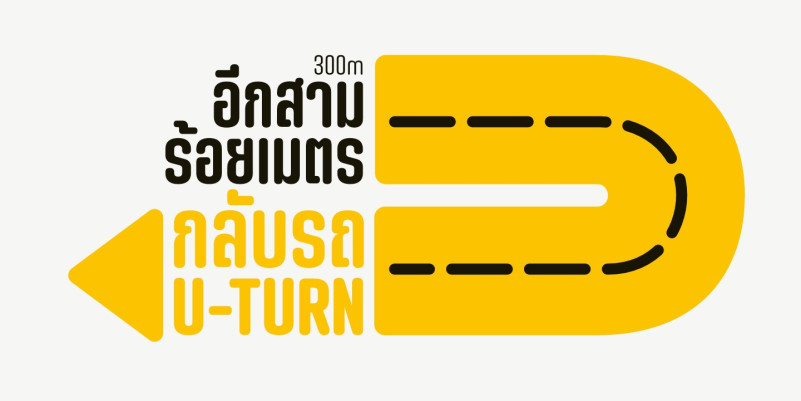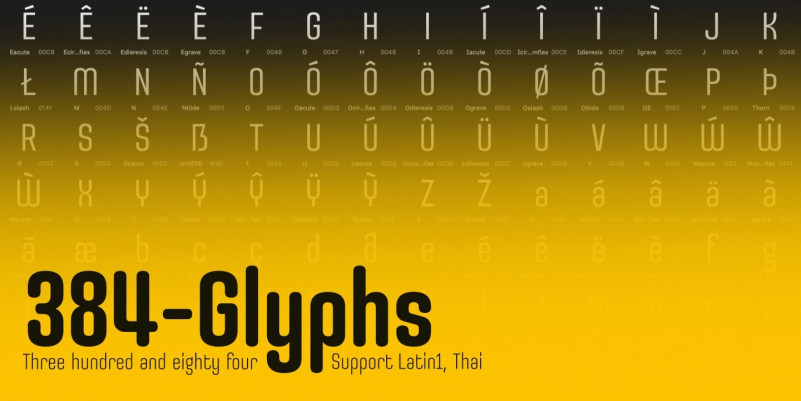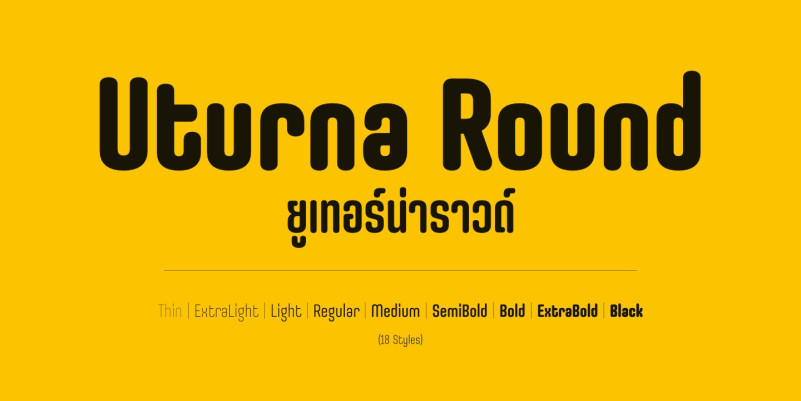
Uturna Round Font
Uturna Round Display Font, You can use it as a logo, badge, insignia, packaging, headline, poster, t-shirt/apparel, greeting card, and wedding invitation.